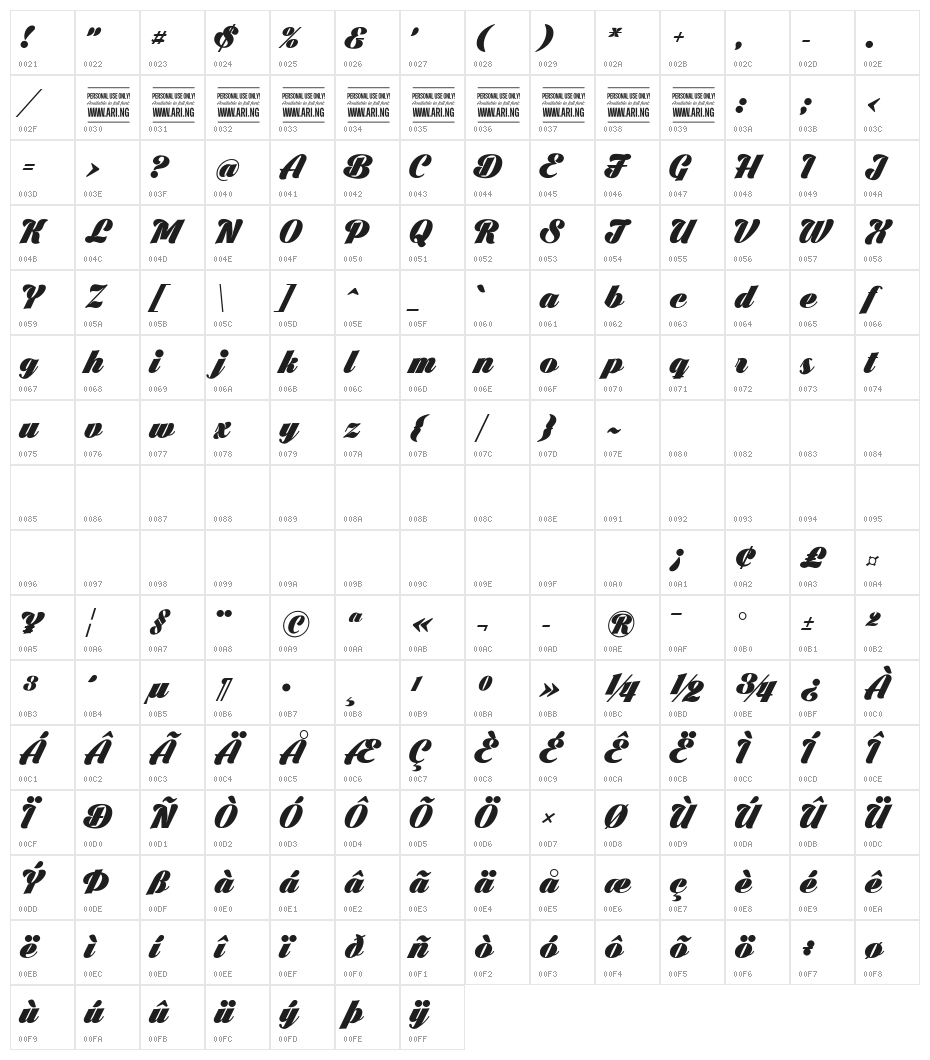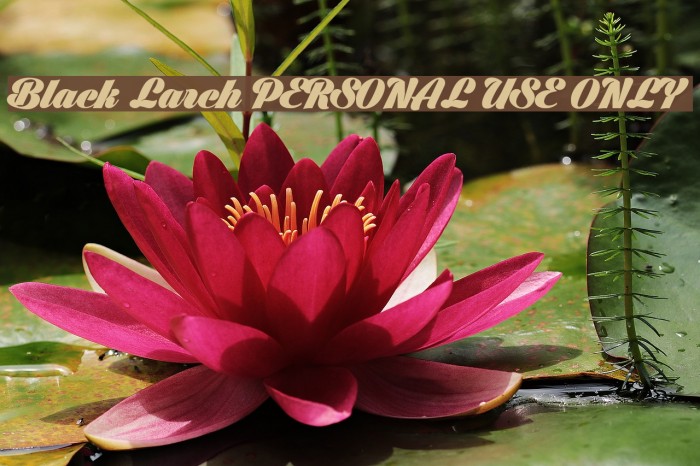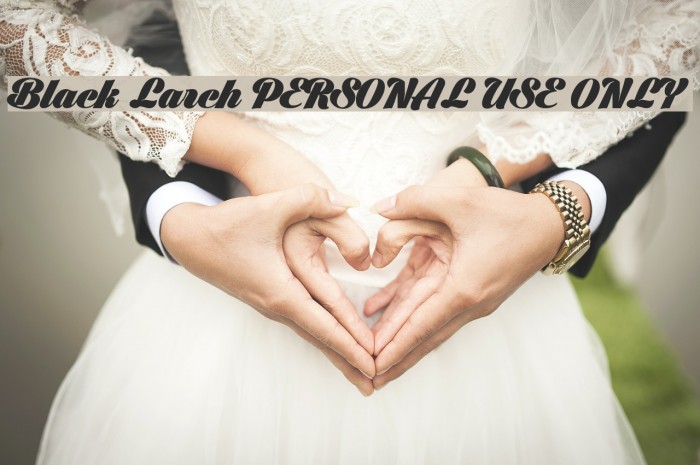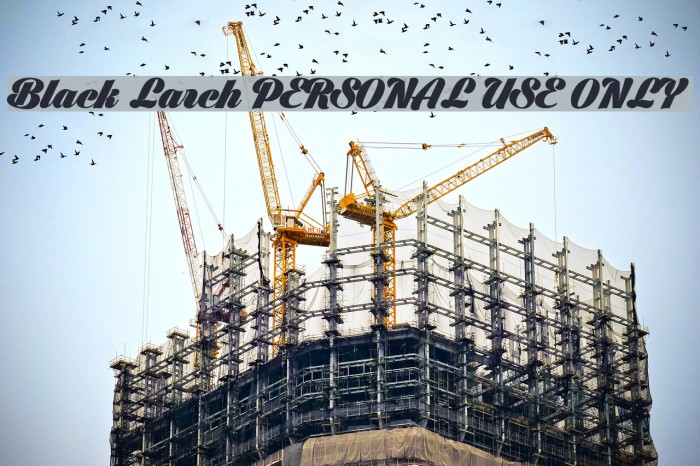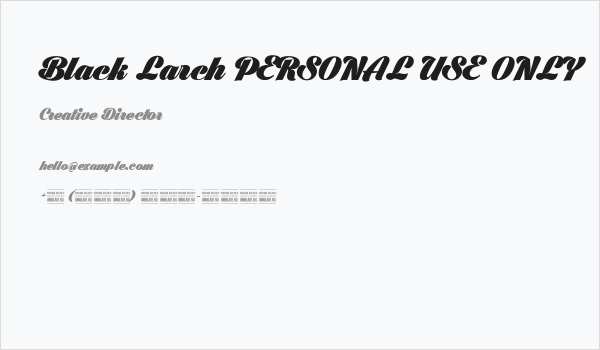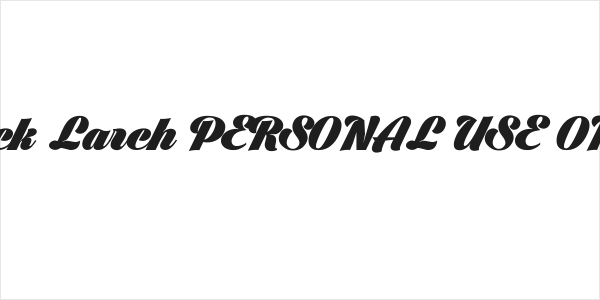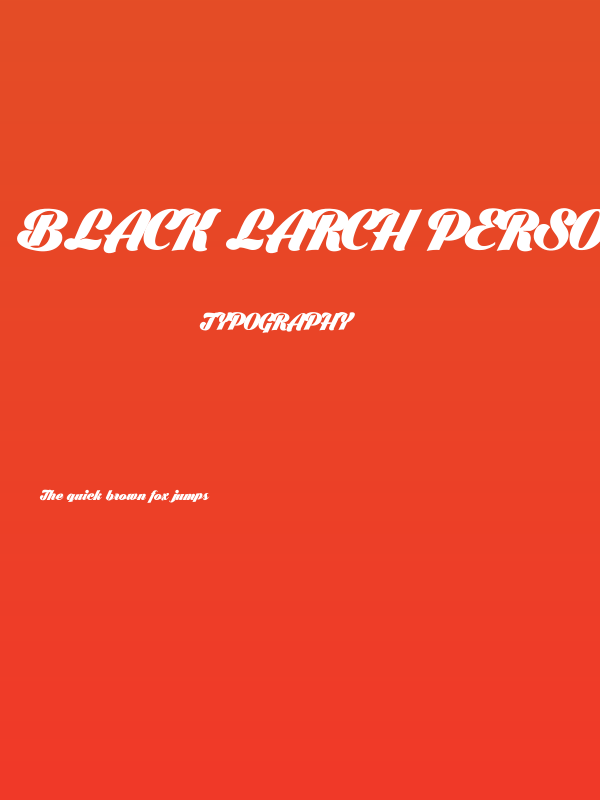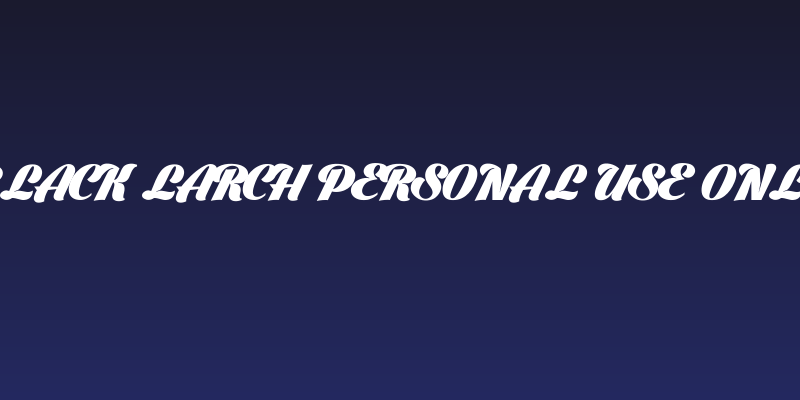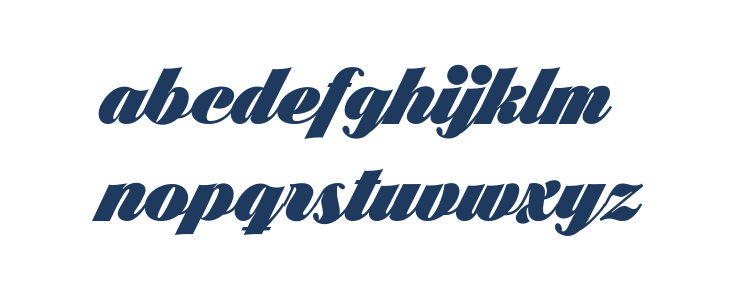
Black Larch PERSONAL USE ONLY Font
Black Larch PERSONAL USE ONLY Description
This font features a bold and dynamic script style with a strong presence. The characters are heavily slanted, giving a sense of motion and energy. Each letter is crafted with thick strokes and sharp edges, creating a striking contrast between the bold lines and the negative space. The uppercase letters are particularly dramatic, with sweeping curves and exaggerated flourishes. The lowercase letters maintain the same boldness but with a slightly more restrained design. The numerals and special characters follow the same stylistic cues, ensuring consistency across all glyphs. This font is ideal for making a statement, with its eye-catching design and powerful visual impact.